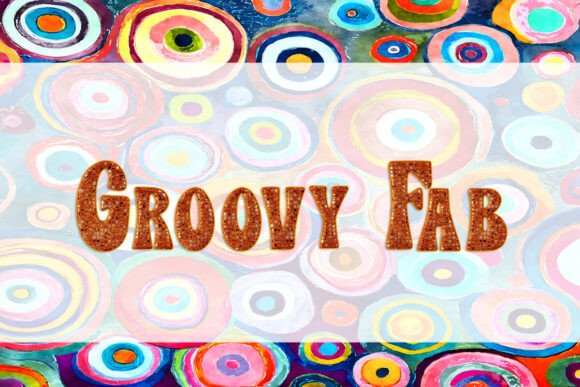
Groovy Fab Font: A Retro Display Font Bursting with Color and Vintage Spirit
Are you looking for a font that captures the iconic aesthetics of the 60s and 70s? A font that exudes movement, optimism, and fun? Look no further than Groovy Fab, a retro display font that is bursting with color, rhythm, and vintage spirit. In this article, we’ll take a closer look at Groovy Fab, its features, and how it can be used to add a touch of nostalgia and vibrancy to your designs.
The Inspiration Behind Groovy Fab
Groovy Fab is inspired by the iconic typography of the 1960s and 1970s, an era known for its bold, colorful, and playful designs. The font’s creator aimed to capture the essence of this era, with its bold, curvy letterforms that radiate positive energy. Each character is designed to evoke a sense of movement and optimism, making it perfect for designs that need a touch of nostalgia and fun.
Key Features of Groovy Fab
Groovy Fab has several key features that make it a standout font:
- Bold, curvy letterforms: Groovy Fab’s letterforms are bold, curvy, and full of movement, capturing the iconic aesthetics of the 60s and 70s.
- Rounded serifs: The font’s rounded serifs add a playful touch, giving it a stylish yet fun look.
- Fluid flow: The fluid flow of the font’s characters creates a sense of movement and energy.
- Vibrant and colorful: Groovy Fab is designed to be vibrant and colorful, making it perfect for designs that need a pop of color and energy.
Uses for Groovy Fab
Groovy Fab is a versatile font that can be used for a wide range of design projects, including:
- Posters: Groovy Fab is perfect for creating eye-catching posters that need a touch of nostalgia and fun.
- Apparel: The font’s bold, curvy letterforms make it ideal for use on t-shirts, hoodies, and other apparel.
- Logos: Groovy Fab can be used to create unique and memorable logos that capture the essence of a brand.
- Packaging: The font’s vibrant and colorful design makes it perfect for use on product packaging.
- Invitations: Groovy Fab can be used to create fun and playful invitations for parties, events, and other gatherings.
- Social media graphics: The font’s bold, curvy letterforms make it ideal for use on social media graphics, such as Facebook posts, Instagram stories, and Twitter headers.
Retro-Themed and Bohemian Projects
Groovy Fab is particularly well-suited for retro-themed and bohemian projects. The font’s bold, curvy letterforms and vibrant colors evoke the freedom and creativity of the disco era, making it perfect for designs that need a touch of nostalgia and fun. Whether you’re creating a poster for a retro-themed party or a logo for a bohemian-inspired brand, Groovy Fab is the perfect choice.
Celebrating Individuality, Art, and Happiness
Groovy Fab is more than just a font – it’s a celebration of individuality, art, and happiness. The font’s bold, curvy letterforms and vibrant colors are designed to evoke a sense of joy and creativity, making it perfect for designs that need to spread a positive message. Whether you’re creating a poster for a art exhibition or a logo for a brand that values individuality, Groovy Fab is the perfect choice.
In conclusion, Groovy Fab is a retro display font that is bursting with color, rhythm, and vintage spirit. Its bold, curvy letterforms and vibrant colors make it perfect for designs that need a touch of nostalgia and fun. With its versatility and wide range of uses, Groovy Fab is a font that every designer should have in their arsenal.